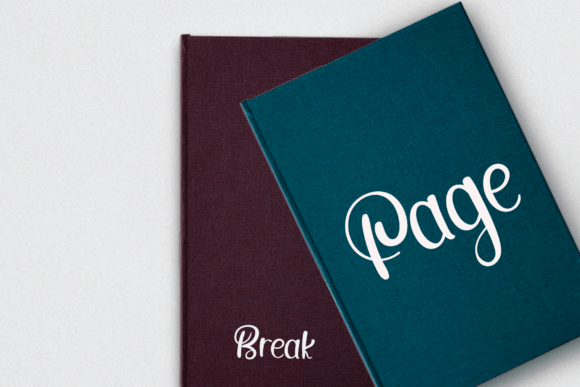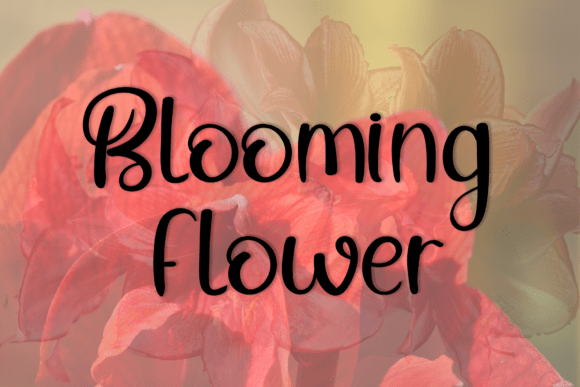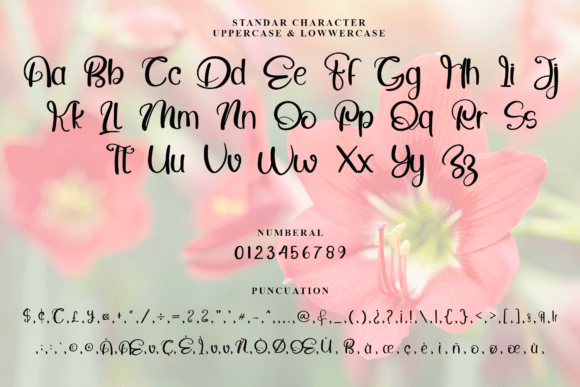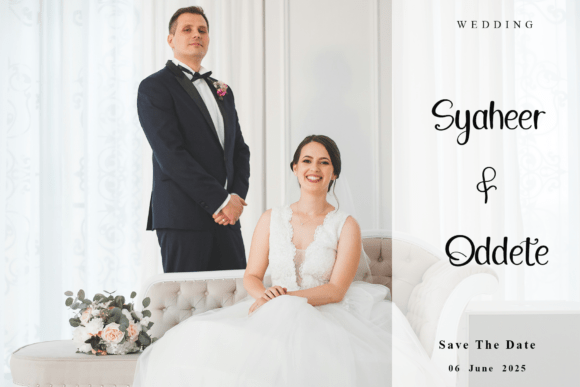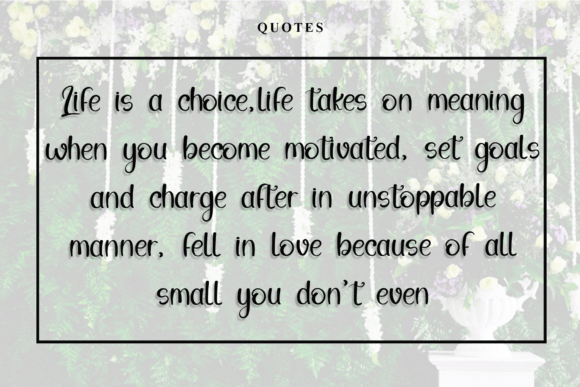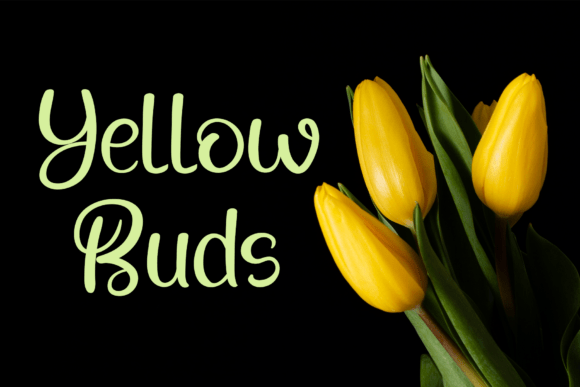
Introducing Amaryllis Font: A Simple yet Versatile Handwritten Font
Are you looking for a font that can add a touch of simplicity and natural elegance to your designs? Look no further than the Amaryllis font! This beautiful handwritten font is perfect for a wide range of applications, from greeting cards to headlines, and is sure to become a staple in your design toolkit.
What is Amaryllis Font?
Amaryllis is a simple handwritten font that exudes a sense of effortless charm. Its clean lines, subtle curves, and natural flow make it perfect for designs that require a personal touch. Whether you’re creating a greeting card, a poster, or a digital graphic, Amaryllis font is guaranteed to add a warm and inviting feel to your project.
Key Features of Amaryllis Font
- Simple and Handwritten: Amaryllis font features a simple, handwritten design that is easy to read and looks great in a variety of contexts.
- Versatile: This font is perfect for a wide range of applications, from greeting cards and posters to headlines and digital graphics.
- Natural Feel: Amaryllis font has a natural, effortless flow that adds a touch of warmth and personality to your designs.
Uses of Amaryllis Font
Amaryllis font is incredibly versatile, and can be used in a variety of contexts. Here are just a few ideas to get you started:
- Greeting Cards: Amaryllis font is perfect for creating beautiful, personalized greeting cards for special occasions.
- Posters and Flyers: Use Amaryllis font to create eye-catching posters and flyers that grab attention and communicate your message.
- Headlines and Titles: Amaryllis font is great for adding a touch of elegance and sophistication to headlines and titles.
- Digital Graphics: This font is perfect for creating digital graphics, such as social media posts, blog headers, and more.
Benefits of Using Amaryllis Font
So why choose Amaryllis font for your next project? Here are just a few benefits of using this beautiful font:
- Easy to Read: Amaryllis font is incredibly easy to read, making it perfect for designs that require a clear and concise message.
- Unique and Personal: This font has a unique, handwritten feel that adds a touch of personality to your designs.
- Time-Saving: With Amaryllis font, you can create beautiful designs in no time – perfect for designers and crafters with tight deadlines.
Tips for Using Amaryllis Font
Here are a few tips for getting the most out of Amaryllis font:
- Experiment with Sizes: Amaryllis font looks great in a variety of sizes, so don’t be afraid to experiment and find the perfect size for your design.
- Pair with Other Fonts: Try pairing Amaryllis font with other fonts to create a unique and eye-catching design.
- Use for Body Text: Amaryllis font is easy to read, making it perfect for use in body text.
In conclusion, Amaryllis font is a simple yet versatile handwritten font that is perfect for a wide range of applications. With its natural feel, clean lines, and effortless charm, this font is sure to become a staple in your design toolkit. Whether you’re a designer, crafter, or DIY enthusiast, Amaryllis font is a great choice for adding a touch of elegance and sophistication to your designs.